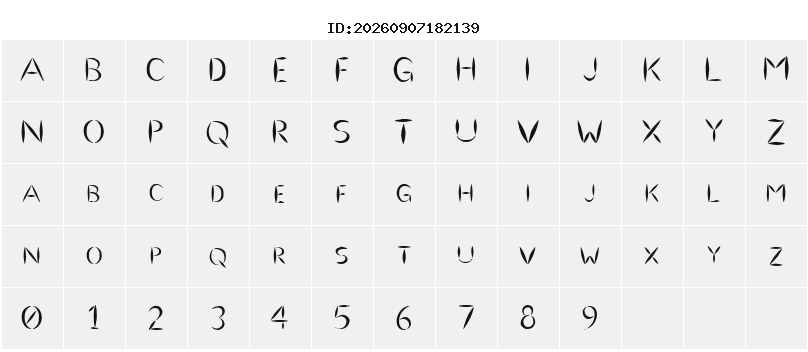
• Font Name: Ulse Freehand
• Full Font Name: Ulse Freehand
About Ulse Freehand .ttf
Ulse Freehand .ttf is a modern, elegant sans-serif font designed for ultimate readability and visual harmony. Perfect for branding, headlines, web design, and print materials.